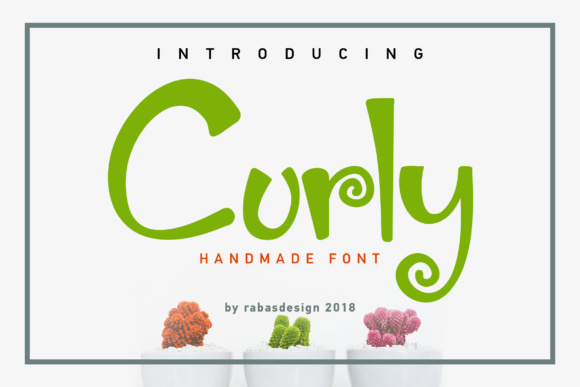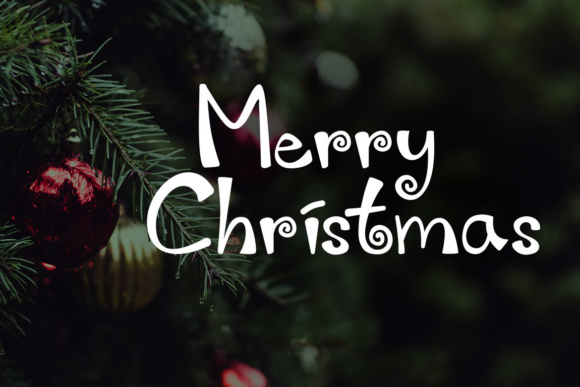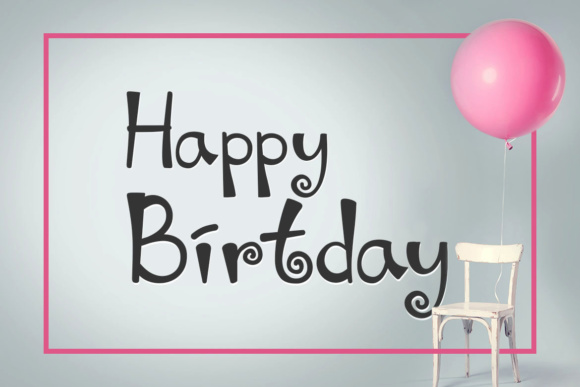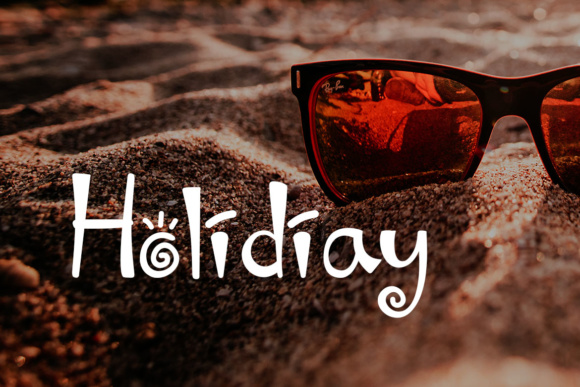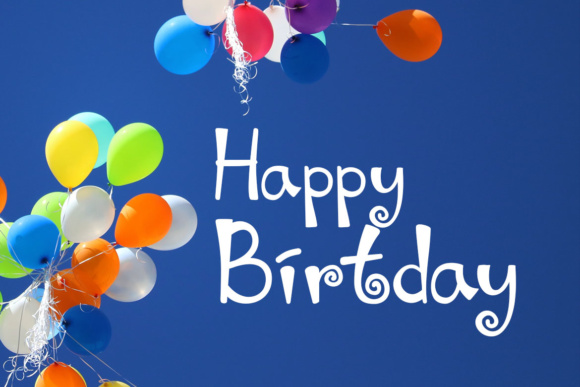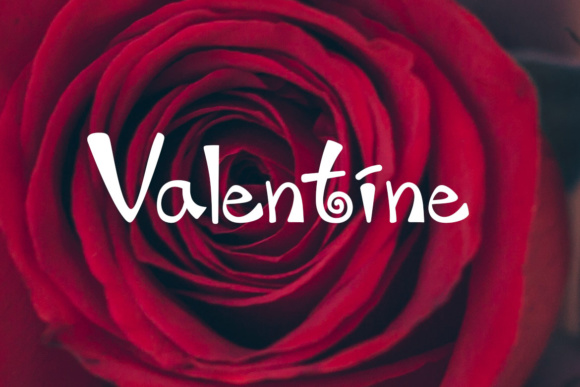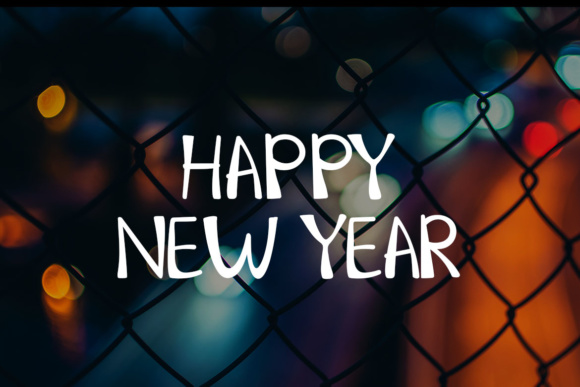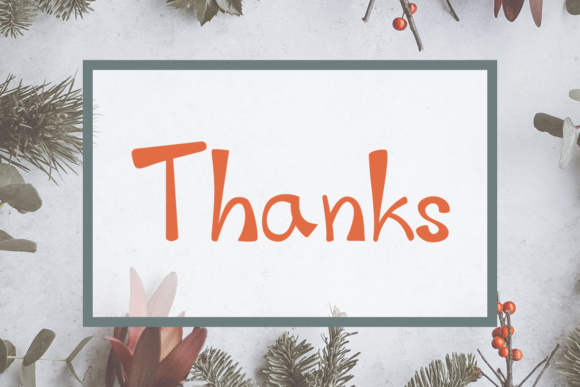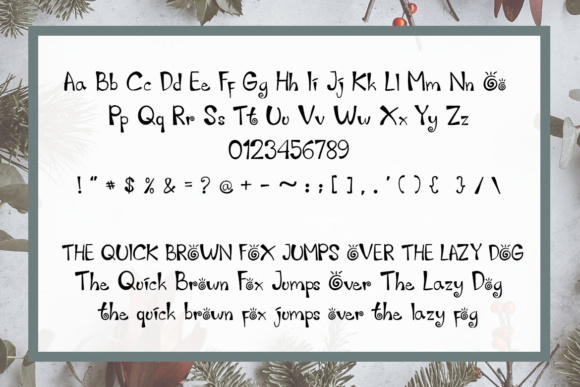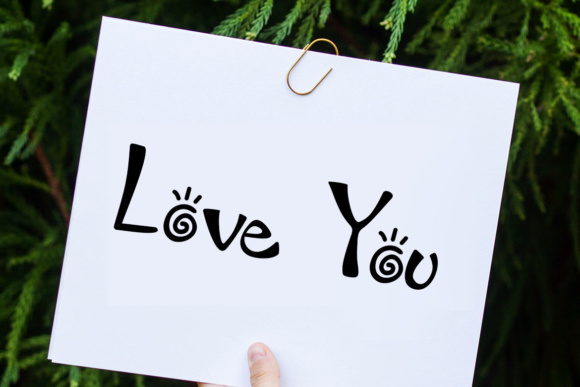
Curly Font
About Curly Font
The Curly is a handwritten font created with the aim to be happy. The curly and beautiful characters give the impression of joy and happiness. It’s very easy to read and has unique character which are very easy to remember.
Curly is very suitable to be applied in various design forms such as invitations, book covers, birthdays, valentine’s day, new year, and every other design that needs an happy and joyful feel.